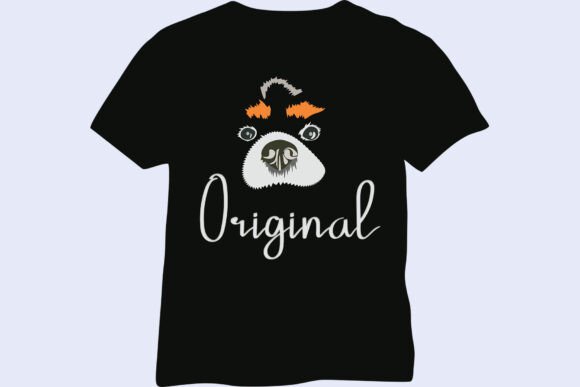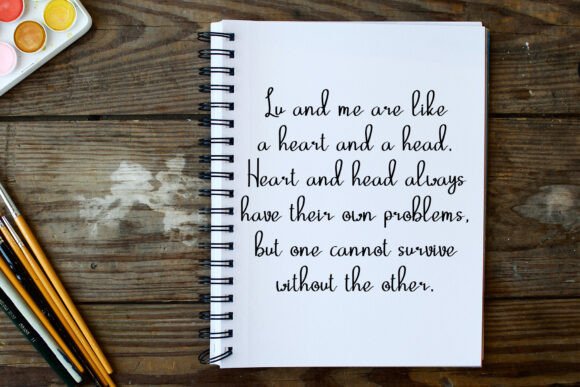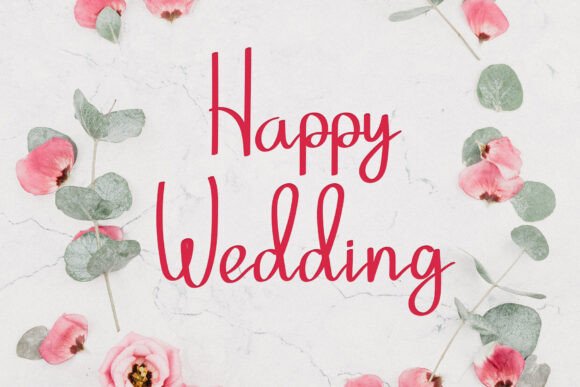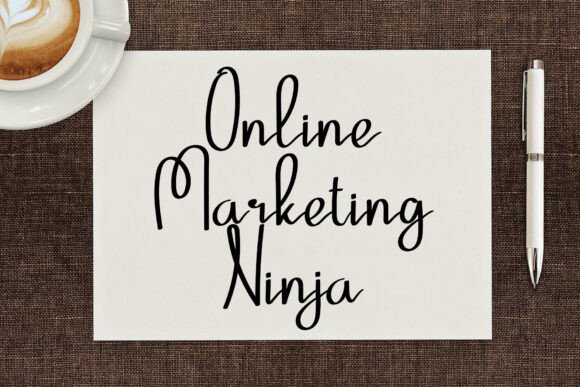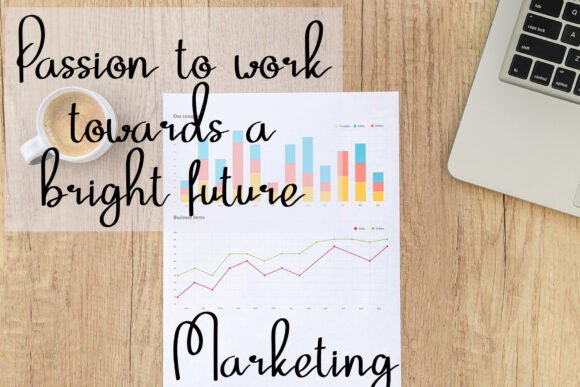
Discover the Charm of Buttermilk Font: Elevate Your Designs with a Timeless Handwritten Style
Are you on the hunt for a font that adds a touch of elegance and whimsy to your designs? Look no further than the Buttermilk Font. This lovely and timeless handwritten font has captured the hearts of designers and crafters alike, and for good reason. With its unique and beautiful touch, Buttermilk Font is the perfect choice for creating eye-catching logos, branding, and quotes that will make your design come alive!
Handwritten fonts have a way of adding a personal touch to any design. They evoke a sense of warmth, friendliness, and approachability that is hard to replicate with more formal fonts. Buttermilk Font is no exception. Its flowing, cursive lines and delicate strokes give it a distinctly human feel that will make your designs stand out from the crowd.
What Makes Buttermilk Font So Special?
So, what sets Buttermilk Font apart from other handwritten fonts on the market? For starters, every letter has a unique and beautiful touch that adds to the font’s overall charm. The letters are carefully crafted to have a sense of movement and fluidity, giving the font a dynamic and lively feel. Whether you’re using it for a logo, branding, or a quote, Buttermilk Font is sure to add a touch of sophistication and elegance to your design.
Buttermilk Font is a versatile font that is perfect for a wide range of design applications. Whether you’re a professional designer or a crafter looking to add a personal touch to your projects, this font is sure to meet your needs. Here are just a few ways you can use Buttermilk Font to elevate your designs:
- Logos and Branding: Create a lasting impression with a custom logo that incorporates Buttermilk Font. The font’s elegant and sophisticated feel makes it perfect for businesses looking to establish a strong brand identity.
- Quotes and Inspiration: Add a touch of whimsy and inspiration to your quotes and social media posts with Buttermilk Font. The font’s flowing lines and delicate strokes make it perfect for sharing motivational and uplifting messages.
- Crafting and DIY Projects: Take your crafting and DIY projects to the next level with Buttermilk Font. Use it to add a personal touch to your handmade cards, gift tags, and other paper crafts.
Why Choose Buttermilk Font?
With so many fonts on the market, it can be hard to know which one to choose. Here are just a few reasons why Buttermilk Font stands out from the crowd:
- Unique and Beautiful: Every letter in Buttermilk Font has a unique and beautiful touch that adds to the font’s overall charm.
- Timeless and Elegant: Buttermilk Font has a timeless and elegant feel that will never go out of style.
- Versatile: Use Buttermilk Font for a wide range of design applications, from logos and branding to quotes and crafting projects.
- Easy to Read: Despite its elegant and sophisticated feel, Buttermilk Font is easy to read and understand, making it perfect for use in a variety of contexts.
Get Creative with Buttermilk Font
In conclusion, Buttermilk Font is a lovely and timeless handwritten font that is perfect for designers and crafters looking to add a touch of elegance and whimsy to their designs. With its unique and beautiful touch, versatile design applications, and easy-to-read style, Buttermilk Font is sure to become a favorite in your design toolkit. So go ahead, get creative, and see what amazing designs you can create with Buttermilk Font!